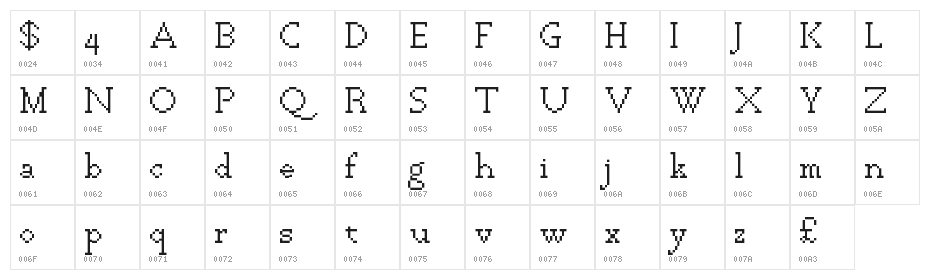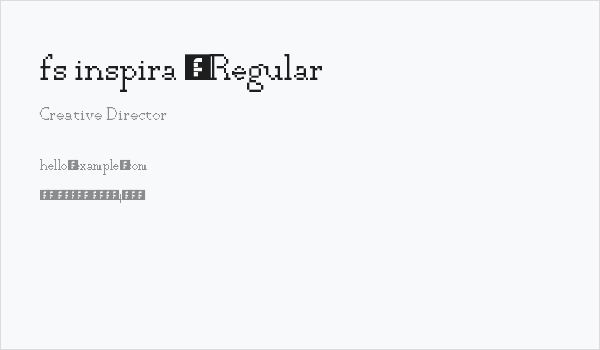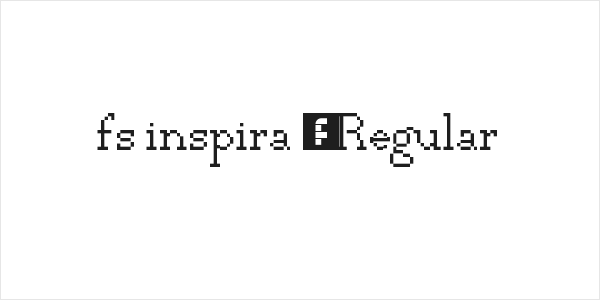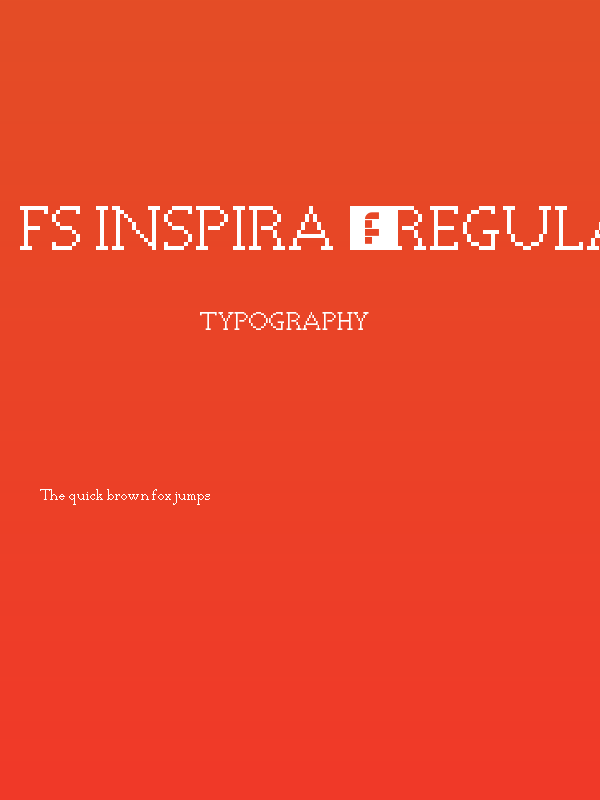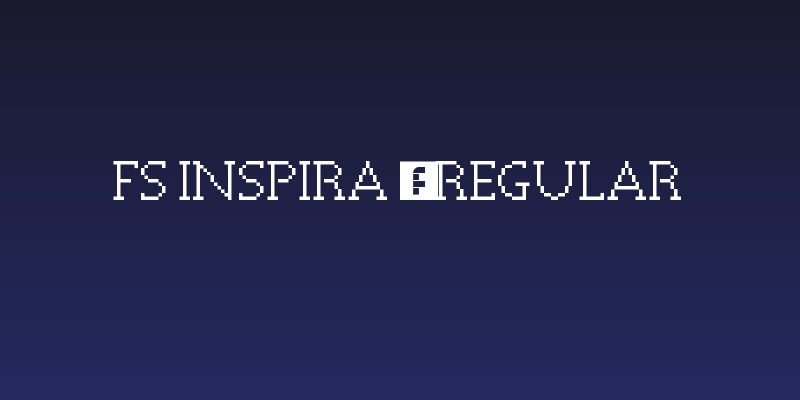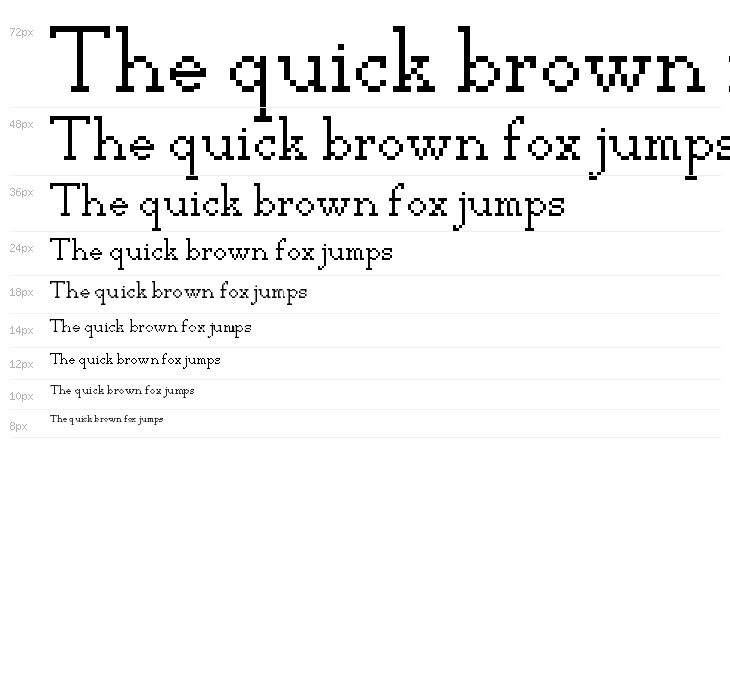
fs inspira 2 Regular Font
fs inspira 2 Regular Description
This font features a pixelated, retro style reminiscent of early digital displays and video games. The characters are composed of small, square blocks, giving it a distinctly digital and vintage feel. The uppercase and lowercase letters maintain a consistent blocky structure, while the numerals and special characters follow the same pixelated pattern. The overall appearance is bold and eye-catching, making it ideal for projects that require a nostalgic or tech-inspired aesthetic. The uniformity in character design ensures readability, even at smaller sizes.
| Use Case | Headlines, Logos, Digital displays |
| Proposed Projects | Ideal for video game design, retro-themed posters, digital art projects, and tech-inspired branding. |